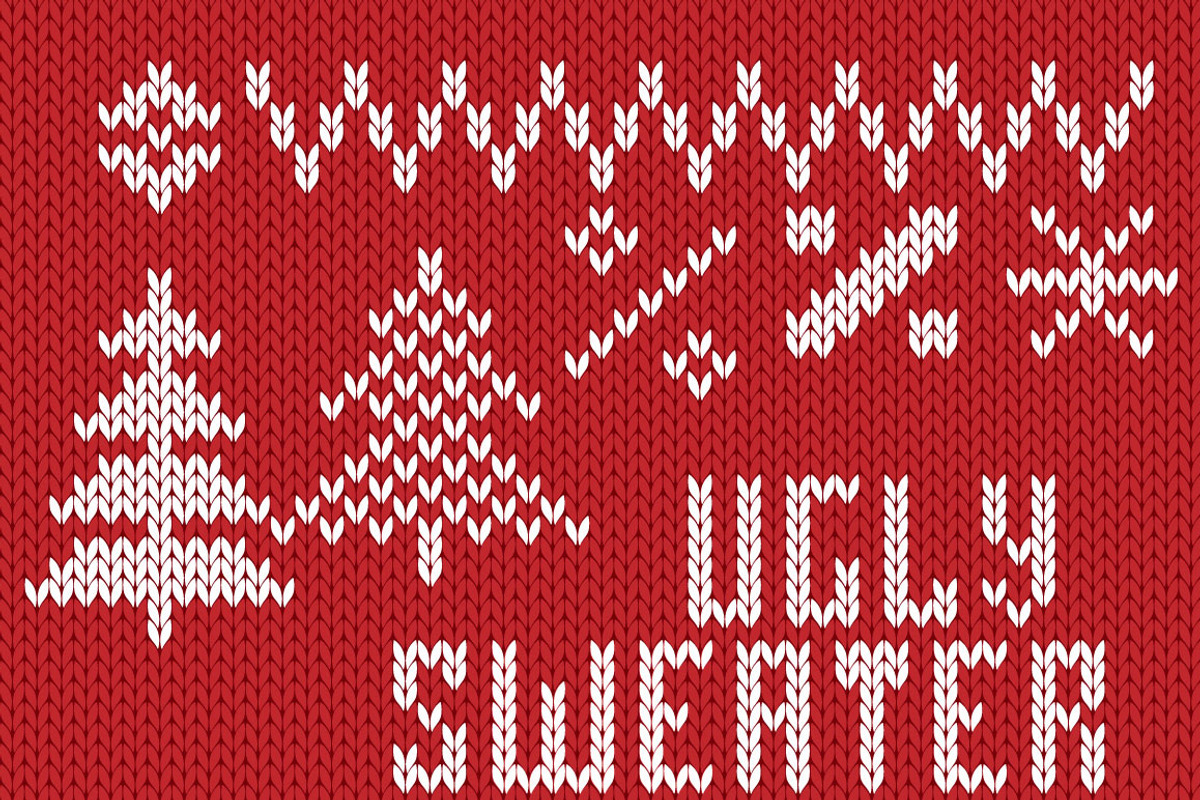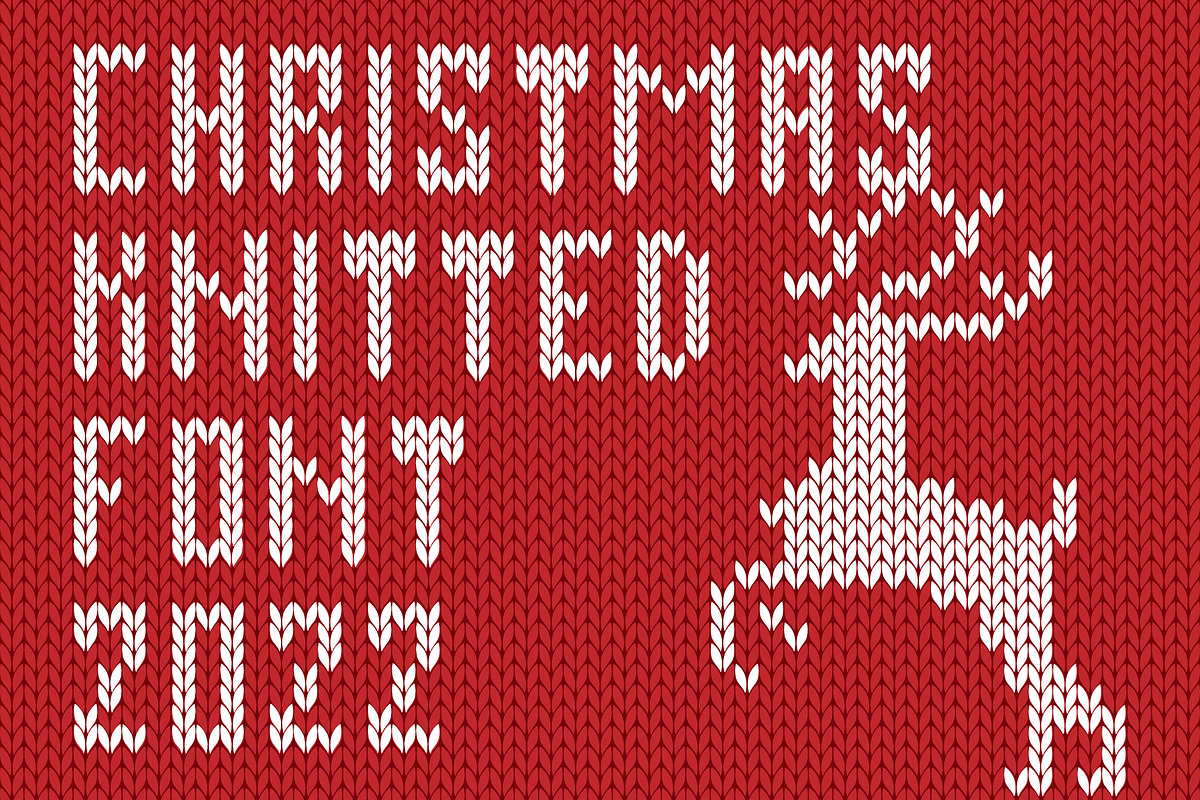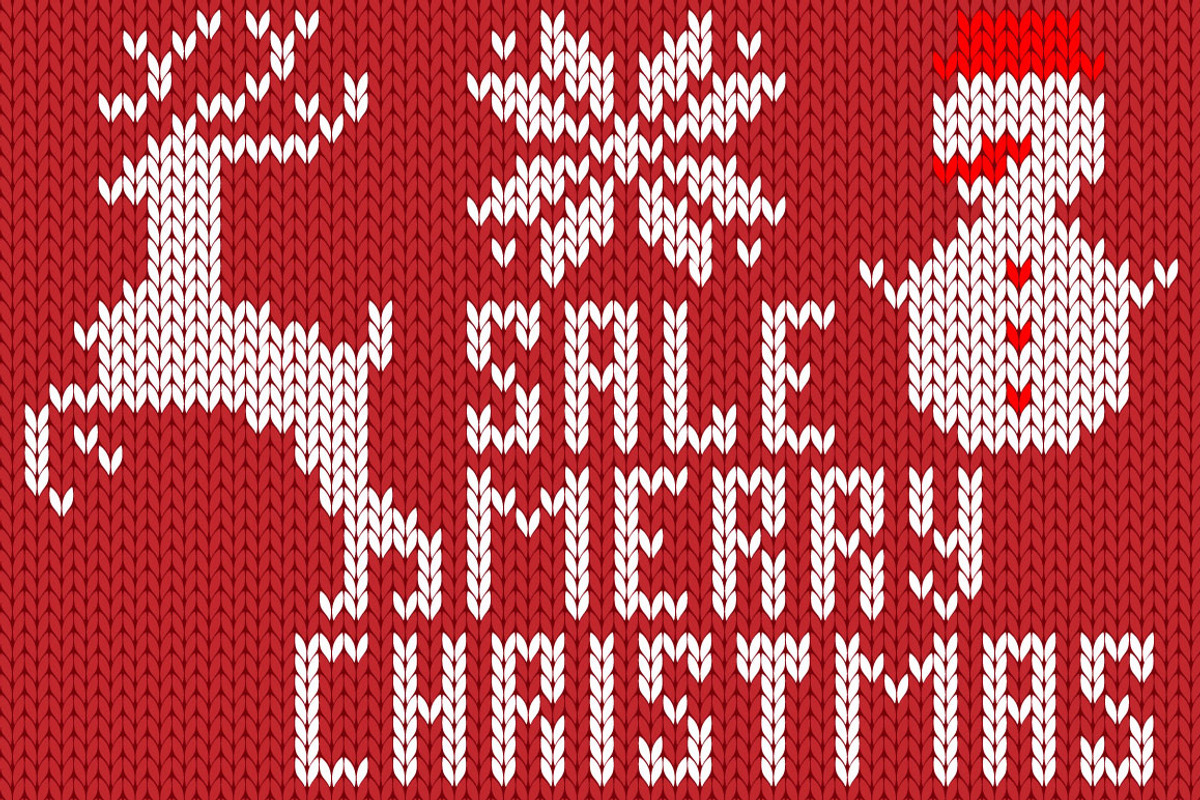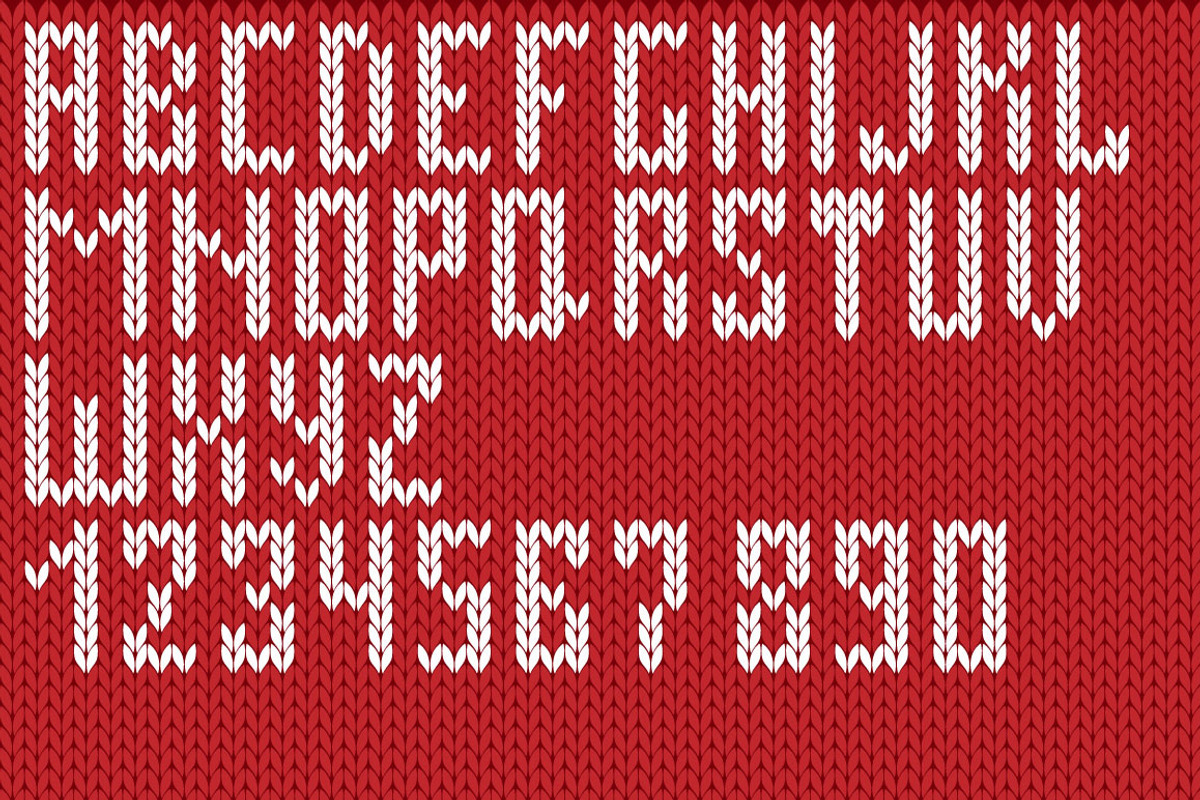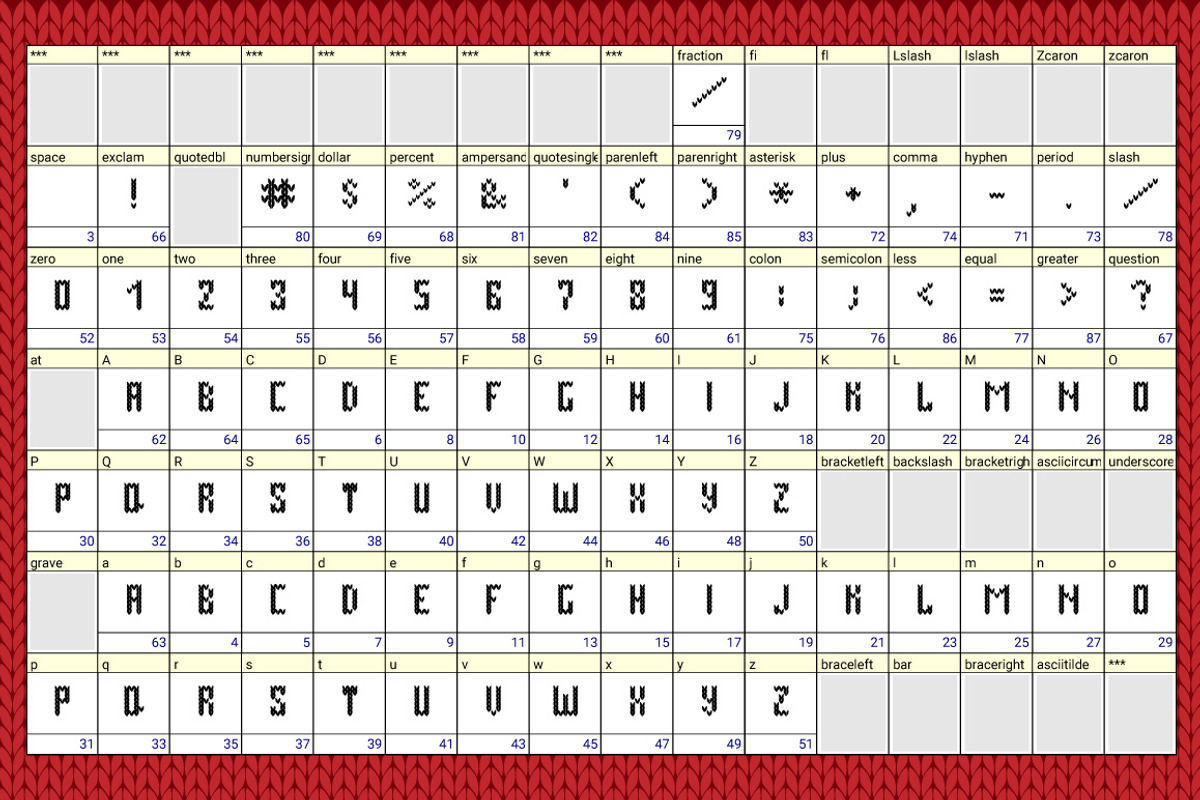
Сhristmas Knitted Font
Why Сhristmas Knitted Font is worth a look
Сhristmas Knitted Font by Artolus fits naturally into Branding, posters, packaging, typography.